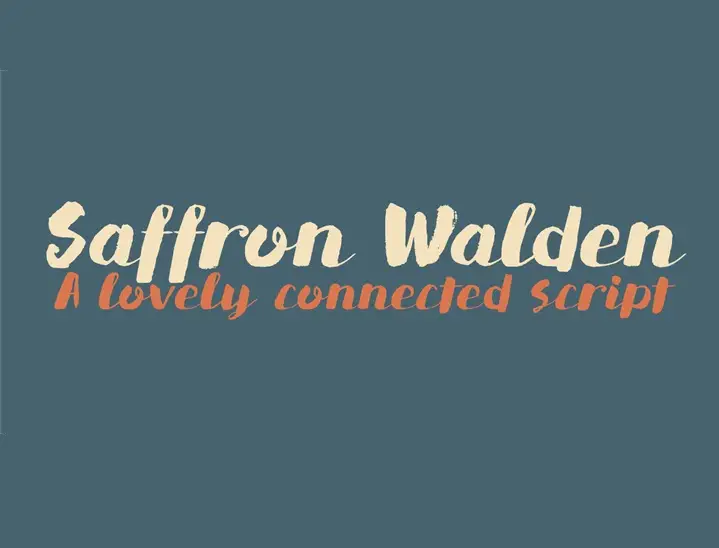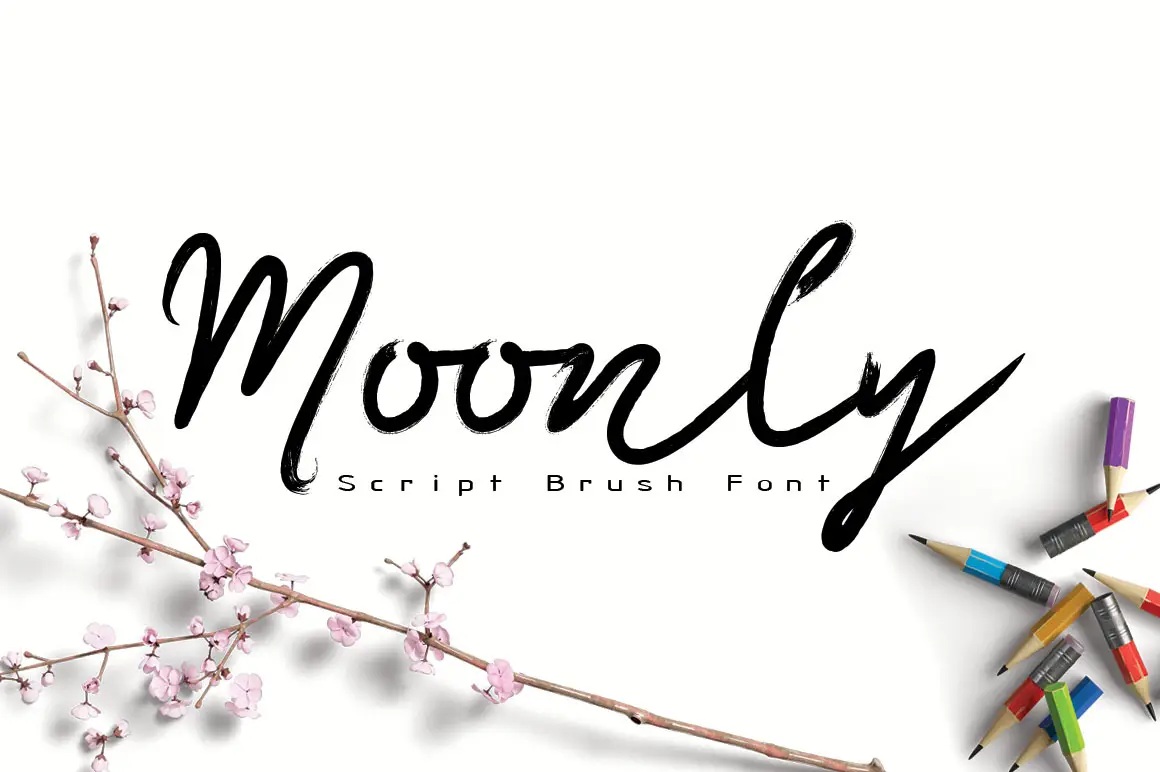
Welcome back, creative soul! 🎨✨ Today, we’re diving into the brushespack Collection Part 45, a treasure trove of digital goodies that will absolutely level up your design game. Whether you’re crafting a cozy holiday card, building a brand from scratch, or just want to add some elegant lettering to your next social post, this collection has something magical for you. 🚀
Why Use These Digital Design Assets?
Because your projects deserve to stand out! 🌟 From stunning calligraphy fonts that make your words dance to versatile graphic packs that add instant polish, these assets save you time and unleash your creativity. Whether you’re a pro designer or a passionate hobbyist, these tools will help you create work that feels deeply human and visually irresistible. 💖
Top 20 Design Assets & Fonts Picks
Moonly
Get ready to be enchanted by Moonly 🌙 — a dreamy design asset with high-quality, easy-to-customize graphics perfect for branding, social media, and web design. It’s pure elegance, ready to make your projects glow! ✨
December Christmas
It’s beginning to look a lot like creativity! 🎄 December Christmas brings high-resolution festive graphics that are perfect for holiday cards, social posts, and all your merry-making projects. Spread the cheer! ❄️🎁
Seilla
Meet Seilla — the modern design asset that brings fresh, contemporary vibes to any project. 🌿 With unique, high-resolution elements that are a breeze to customize, your work will instantly feel crisp and current. Love at first click! 💫
Nayla Modern Calligraphy Font
Your words deserve to be gorgeous! ✍️ Nayla Modern Calligraphy Font features flowing, elegant lines that are perfect for branding, invitations, and social media. Multiple weights give you all the flexibility you need. Simply stunning! 🌸
Next Art Ver 2 1 Fonts
This font family is a game-changer for any designer! 🚀 Next Art Ver 2 1 Fonts comes in Regular, Bold, and Italic styles, making it ultra-versatile for branding, logos, web, print, and UIs. Your new go-to typeface is here! 🔥
Serenity & Olivia Calligraphy Font
Pure elegance, personified! 🌹 Serenity & Olivia Calligraphy Font is a beautifully crafted typeface with multiple weights and an extensive character set. Perfect for wedding invites, branding, and logos that need a touch of class. Absolutely gorgeous! ✨
Marsellina Calligraphy Typeface Font
Flowing strokes meet artistic flair! 🖋️ Marsellina Calligraphy Typeface Font brings sophistication to branding, wedding invites, and logos. With multiple weights, you can dial the elegance up or down. A true designer’s dream! 💖
Dk Saffron Walden Font
A delightful mix of rounded charm and sharp sophistication! 🎭 Dk Saffron Walden Font comes in Light, Regular, and Bold weights, plus OTF, TTF, and WOFF formats. It’s whimsical yet polished — perfect for any project that needs personality! 🌟
Kage Pro Variable Font 2
Variable font technology? Yes, please! 🚀 Kage Pro Variable Font 2 offers smooth weight transitions and multiple styles (regular, bold, italic) for ultimate design flexibility. Ideal for branding, logos, web, and print. So modern! ✨
Blackstone By Hsco
Bold, versatile, and oh-so-stylish! 🖤 Blackstone By Hsco is a collection of high-resolution design assets that are easy to customize and suit any need — from personal projects to professional branding. Instant wow factor! 👌
Kessler
Clean, modern, and seriously sophisticated! 🖋️ Kessler font features multiple weights, stylish uppercase & lowercase letters, and tons of ligatures for seamless text flow. Perfect for branding, web, and print. So chic! 💫
Mothica
Unique, modern, and totally fresh! 🦋 Mothica offers high-quality digital assets with a range of design elements that are easy to customize. Bring a fresh, modern flair to any project. You’ll love it! 🌿
Phoenix
Rise from the creative ashes! 🔥 Phoenix is a versatile design asset with high-resolution graphics, customizable templates, and layered files for easy editing. Your projects will truly soar! 🦅✨
Mollysh Calligraphy Font
Elegance meets playful curves! 🌸 Mollysh Calligraphy Font is perfect for branding, invitations, and personalized stationery. With multiple weights and artistic flair, your text will never look boring again. Love it! 💖
Cheops Elegant Font
Refined, classy, and incredibly versatile! 👑 Cheops Elegant Font combines sophistication with modern curves — perfect for branding, logos, web design, and print. Add a touch of class to any project! ✨
Sarcastic Typeface + Extras
Add some sass to your designs! 😏 Sarcastic Typeface + Extras is bold, quirky, and full of personality. Perfect for eye-catching headlines, logos, and branding that demands attention. Your work just got a whole lot more fun! 🎉
Nordin
Style meets functionality in the best way! 🌟 Nordin is a versatile digital asset with high-resolution, crisp visuals and a variety of styles. Seamlessly integrate it into any design workflow. A must-have! 🎯
What makes the brushespack collection unique?
Every asset is curated for quality, style, and ease of use. Whether you’re a pro or a beginner, you’ll find unique designs that add that special “wow” factor to your projects. It’s like having a secret creative superpower! 💪🎨